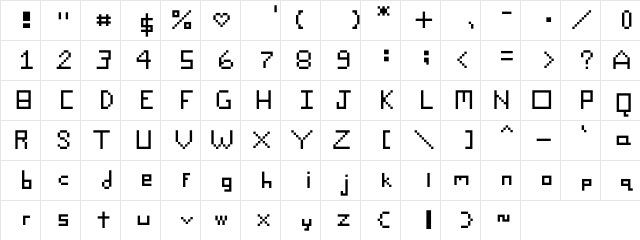
Pixified Regular
Design Context for Pixified Typeface
Pixified takes a measured approach to typography — its balanced proportions and neutral character make it a reliable workhorse for both digital and print work.